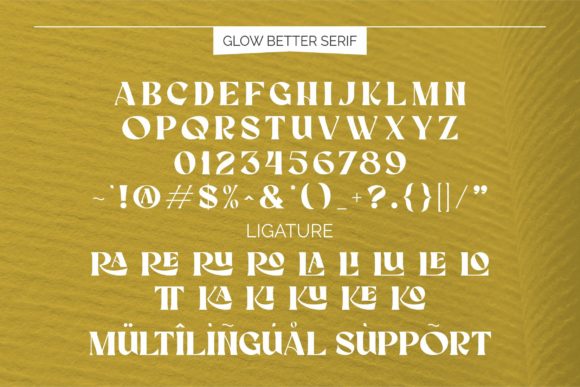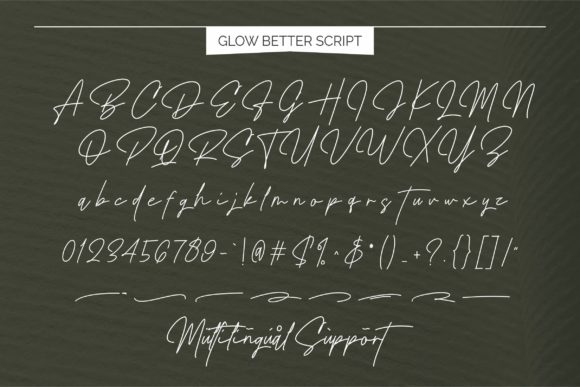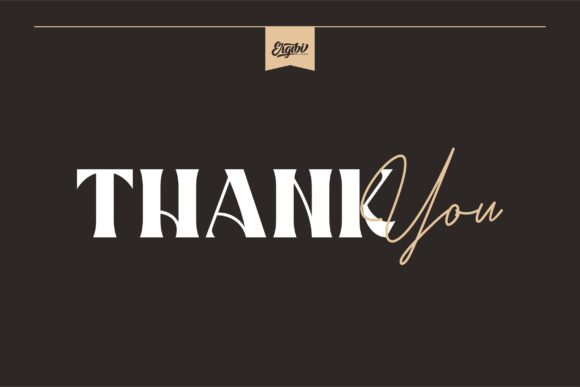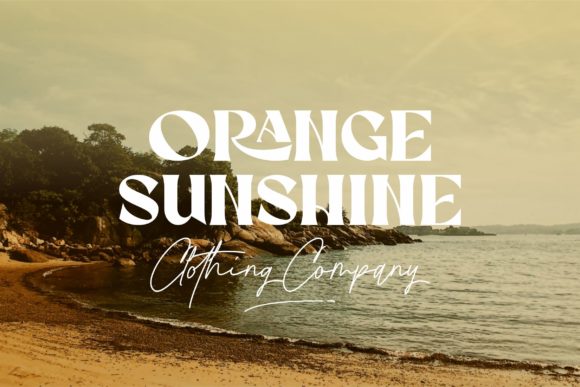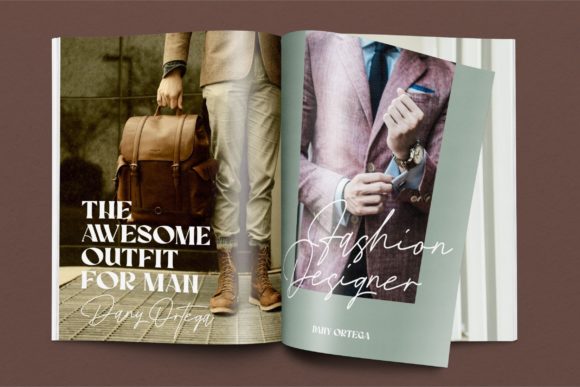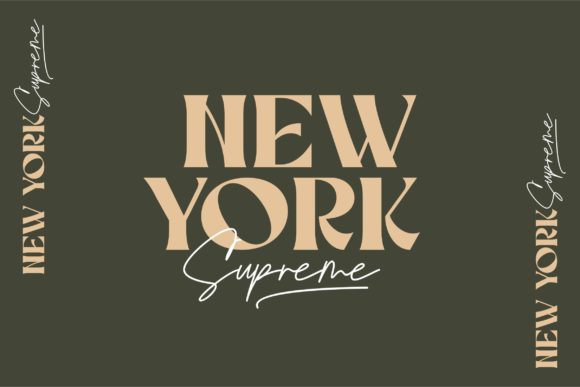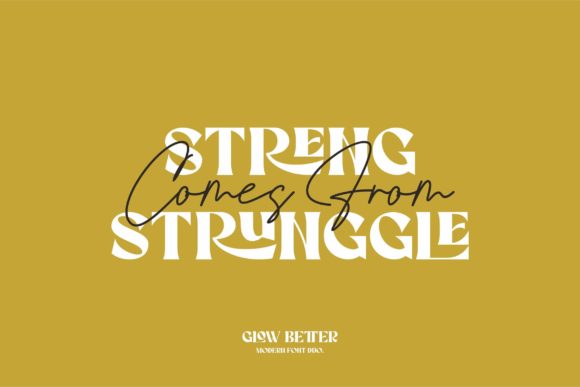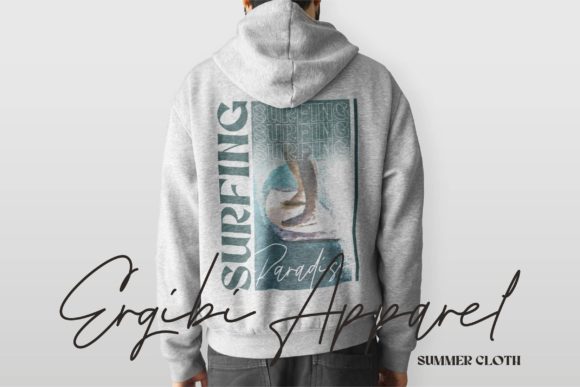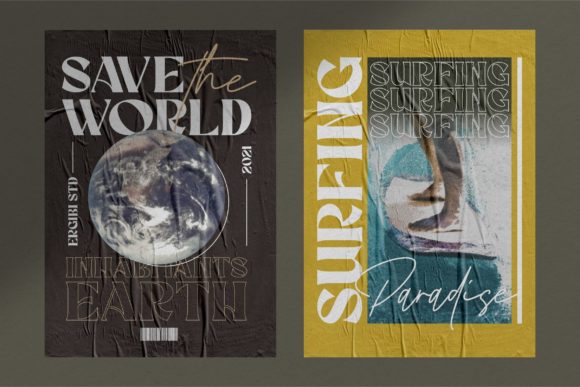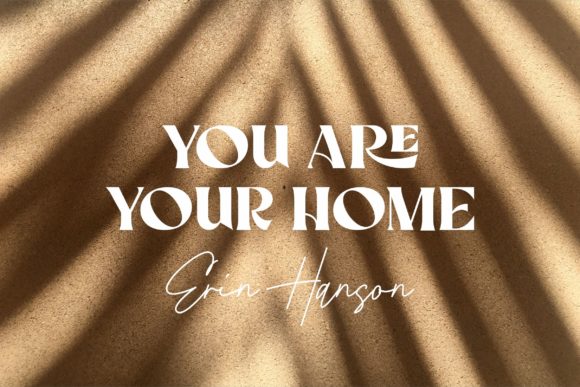
Glow Better Font
About Glow Better Font
Glow Better is a lovely duo font (serif and script), crafted to give your headlines and logotype projects a stylish touch. This font reads as strong, confident, and dynamic and can add tons of nostalgic character to your designs. Glow Better is PUA encoded which means you can access all of the glyphs and swashes with ease!